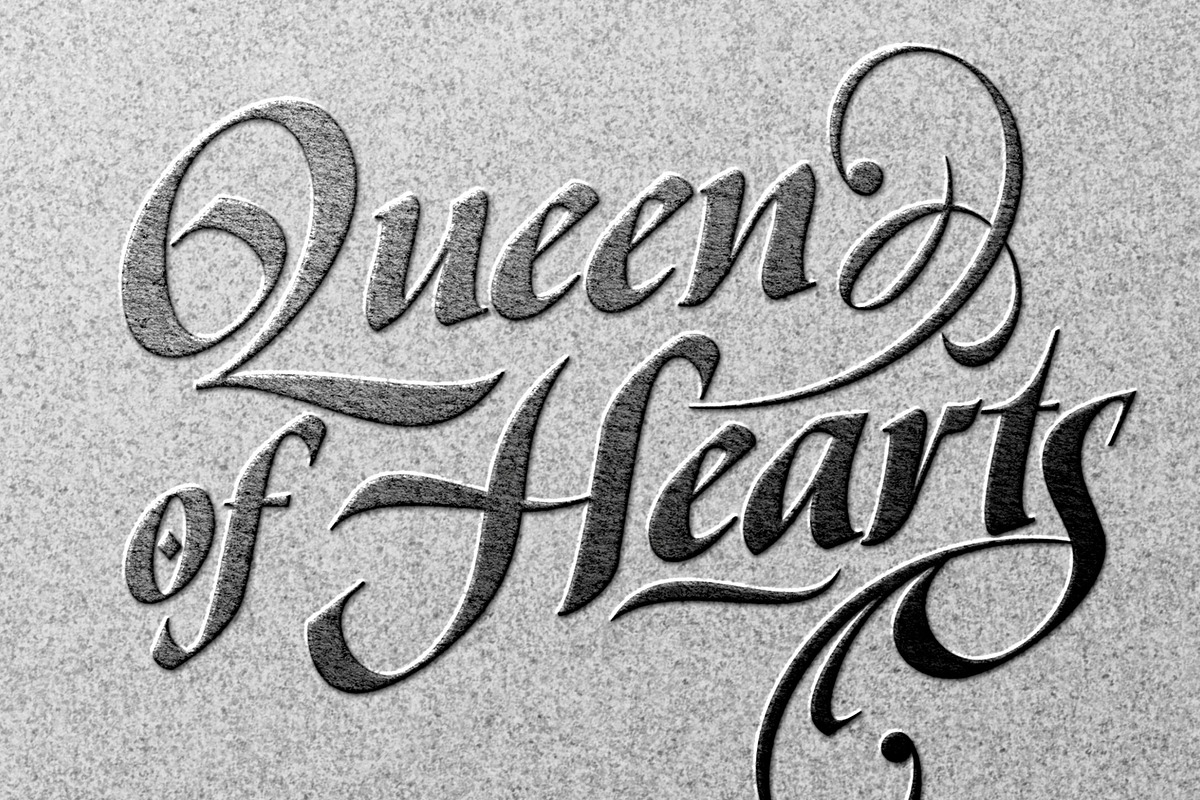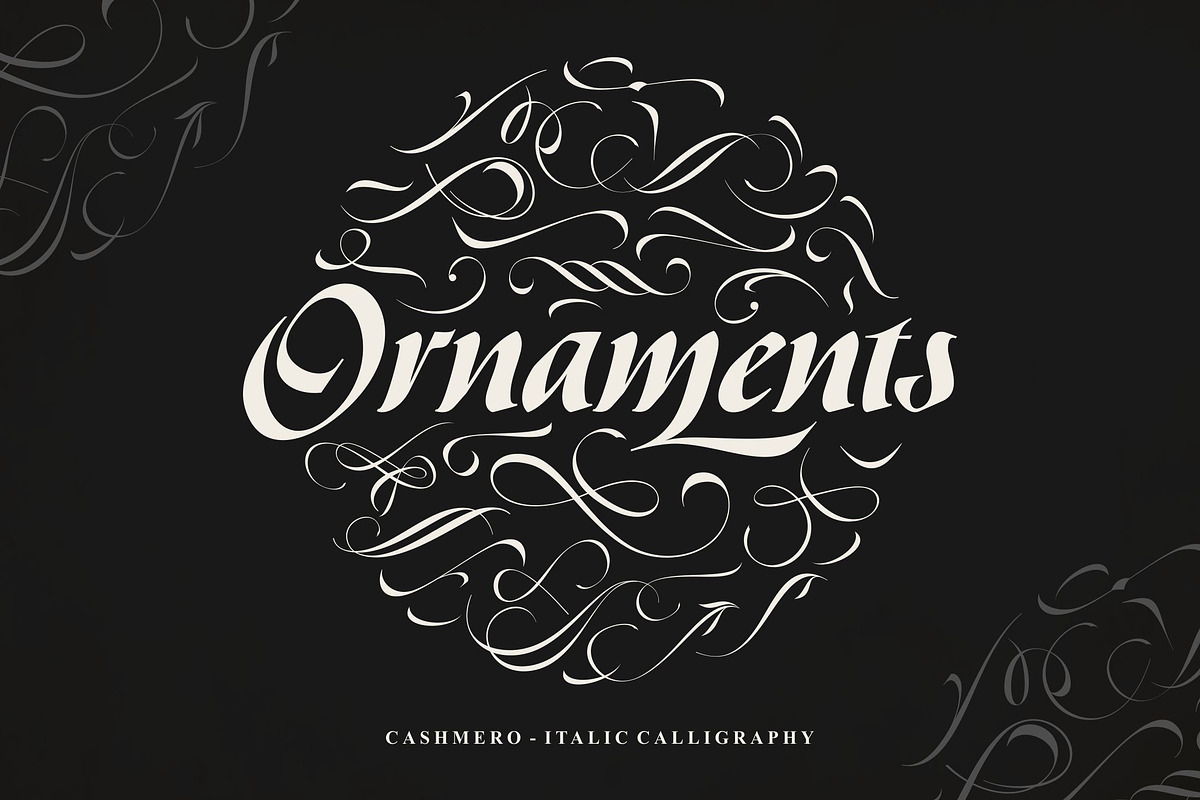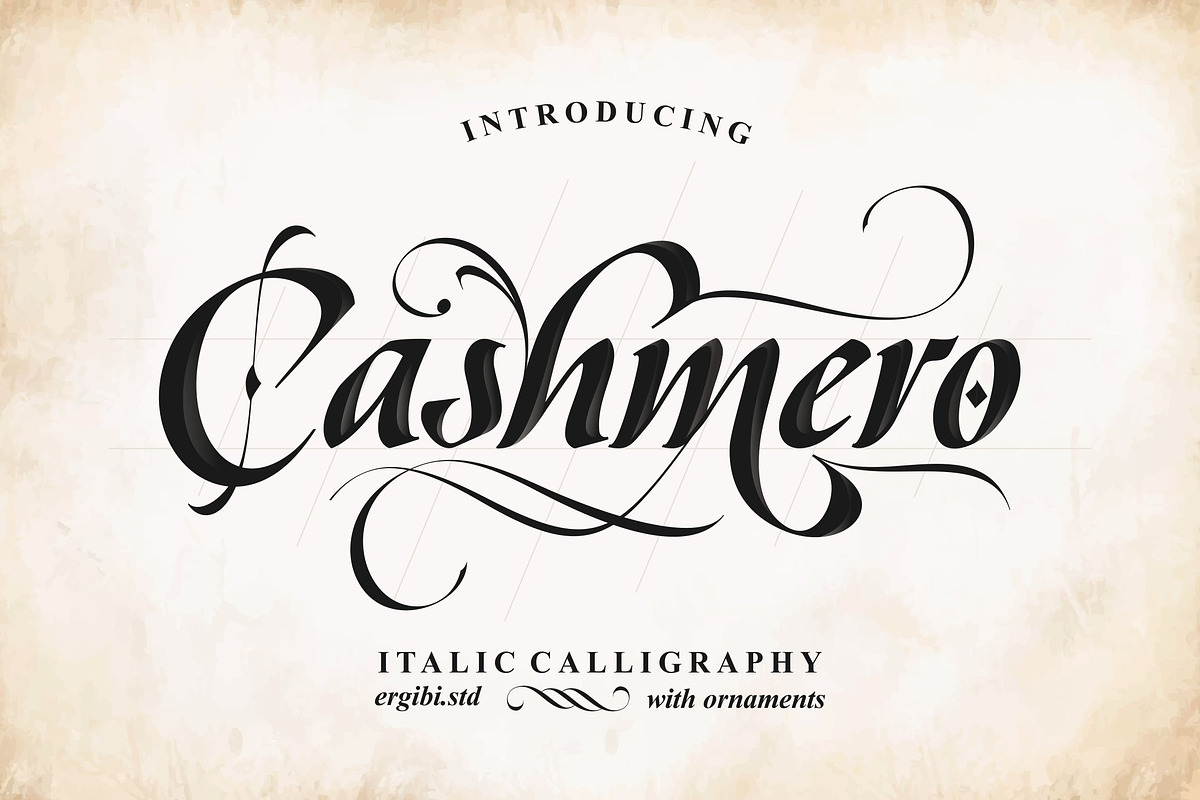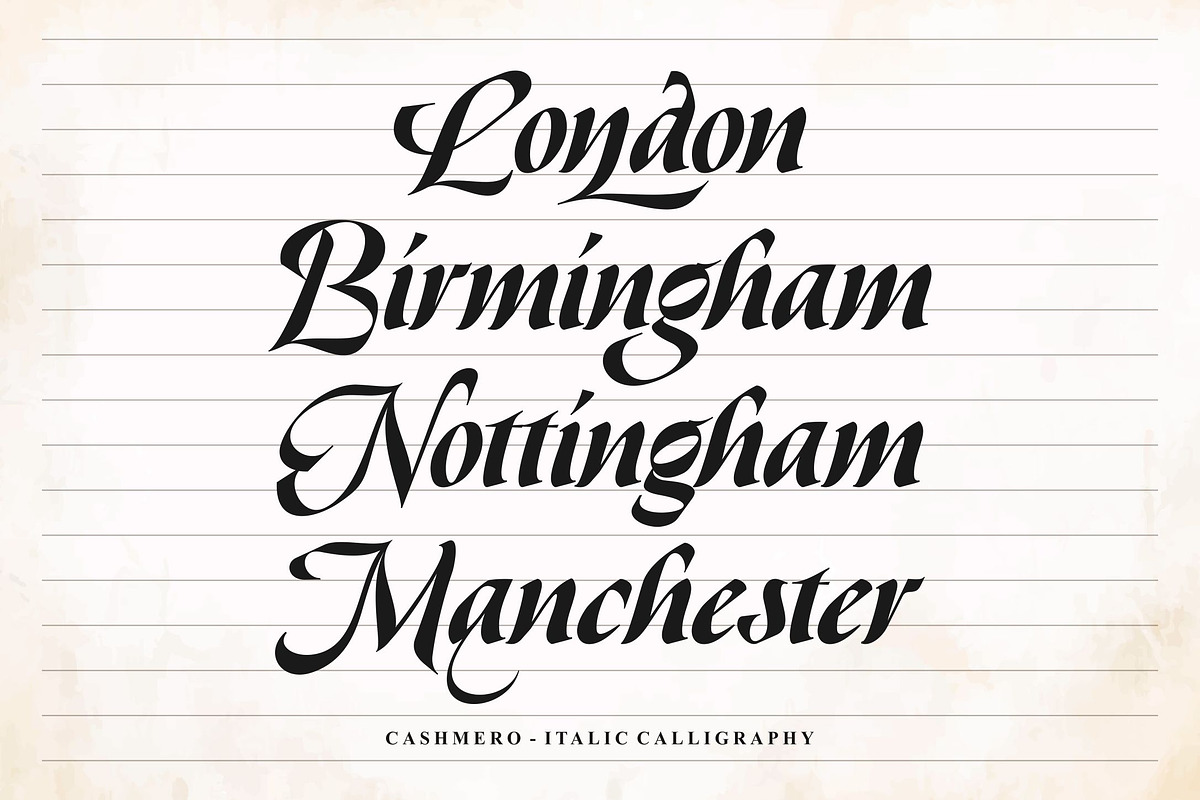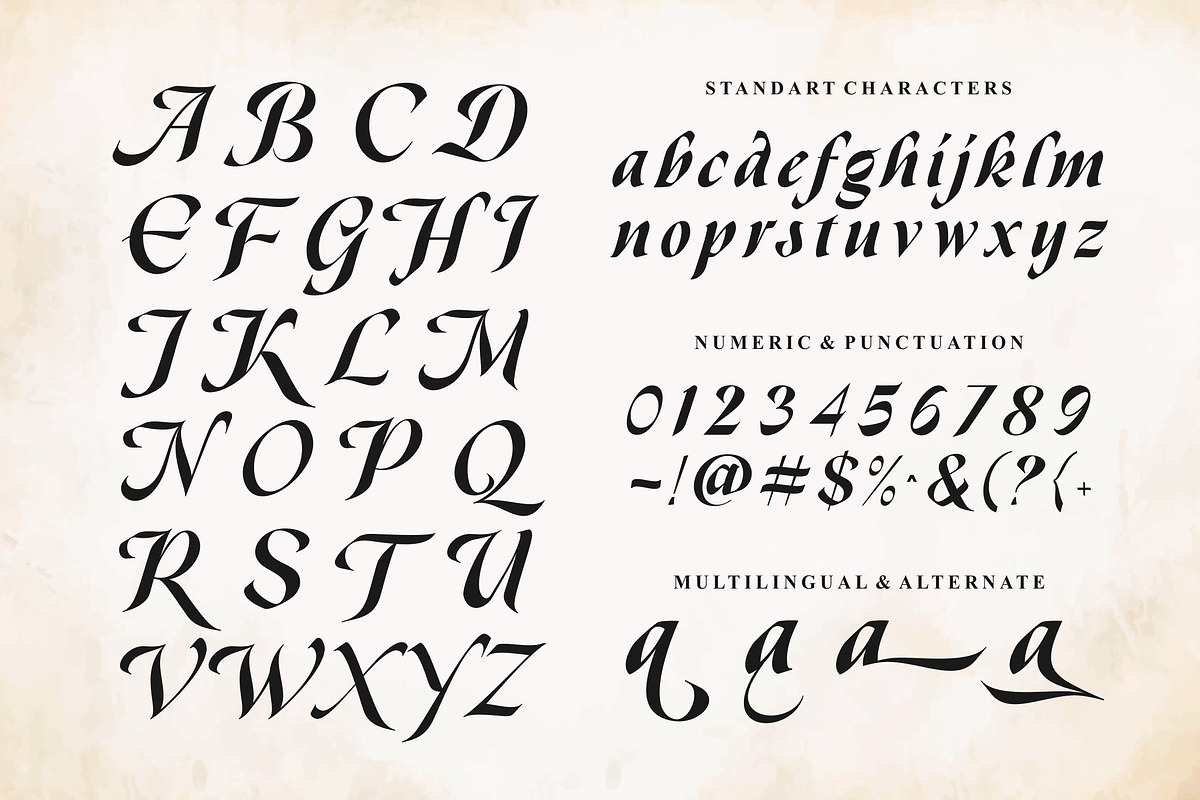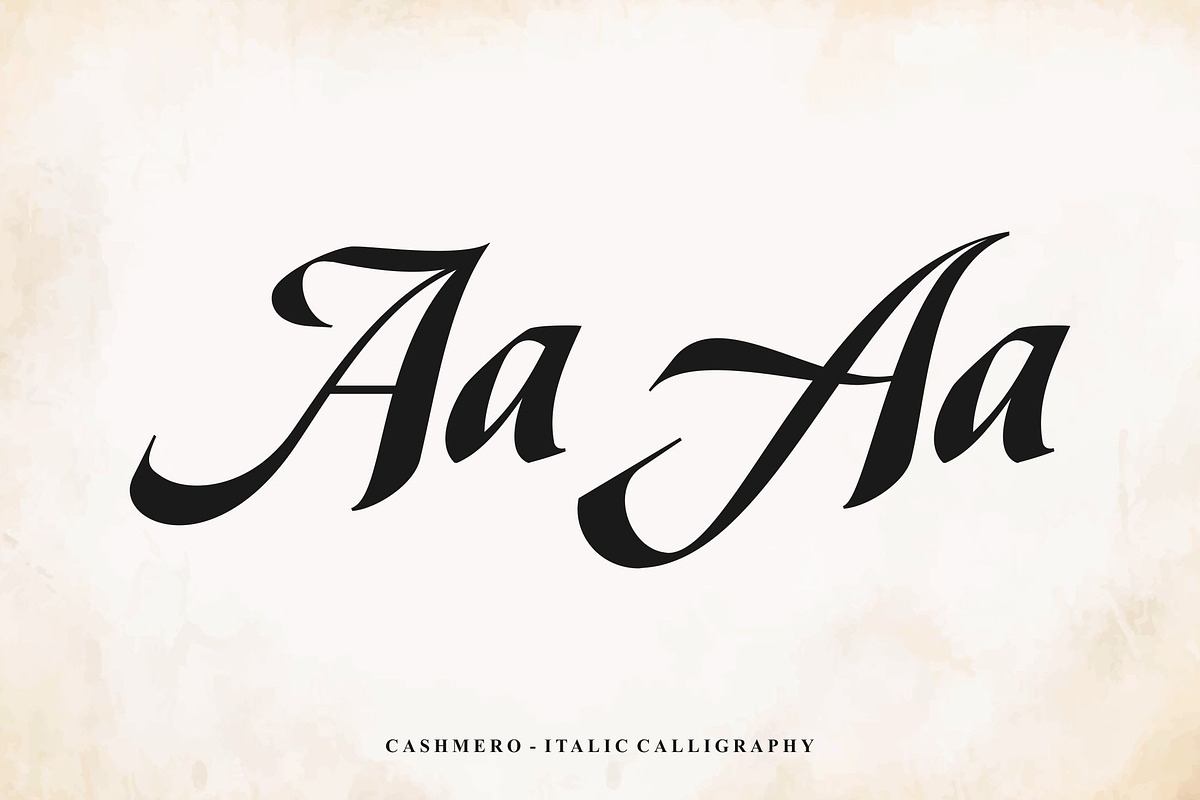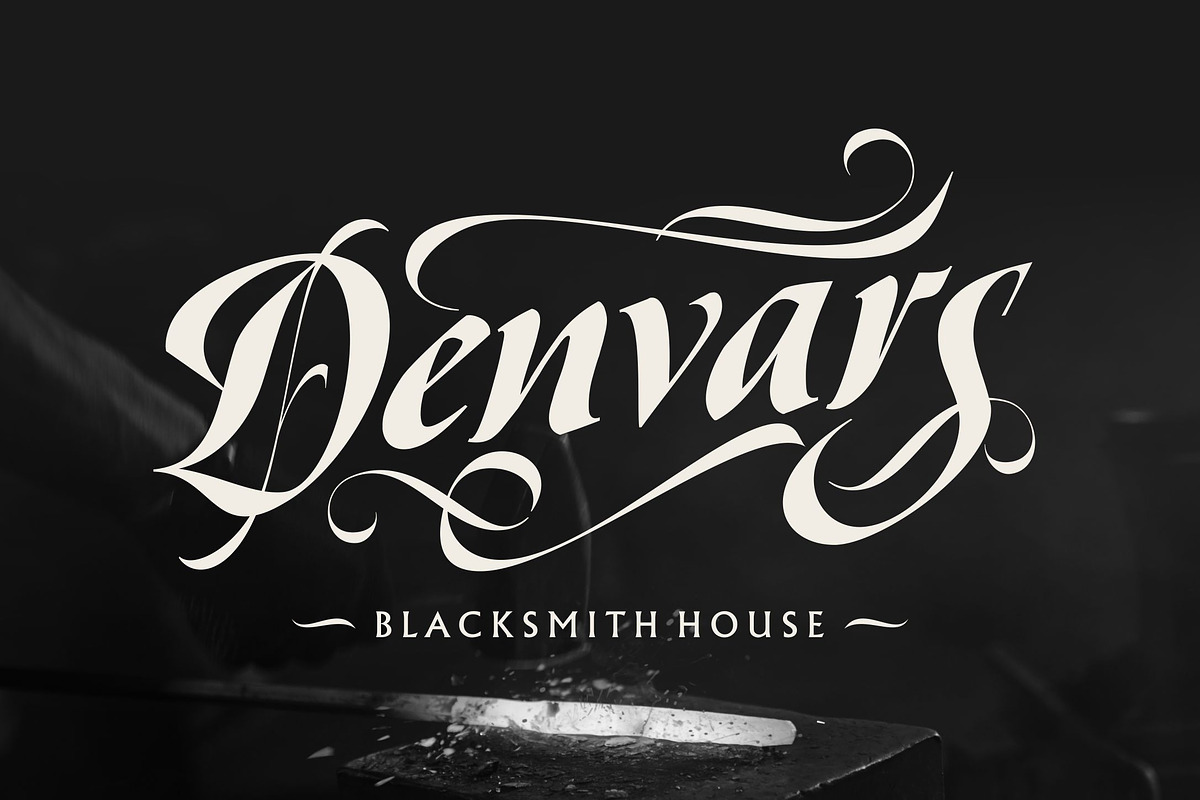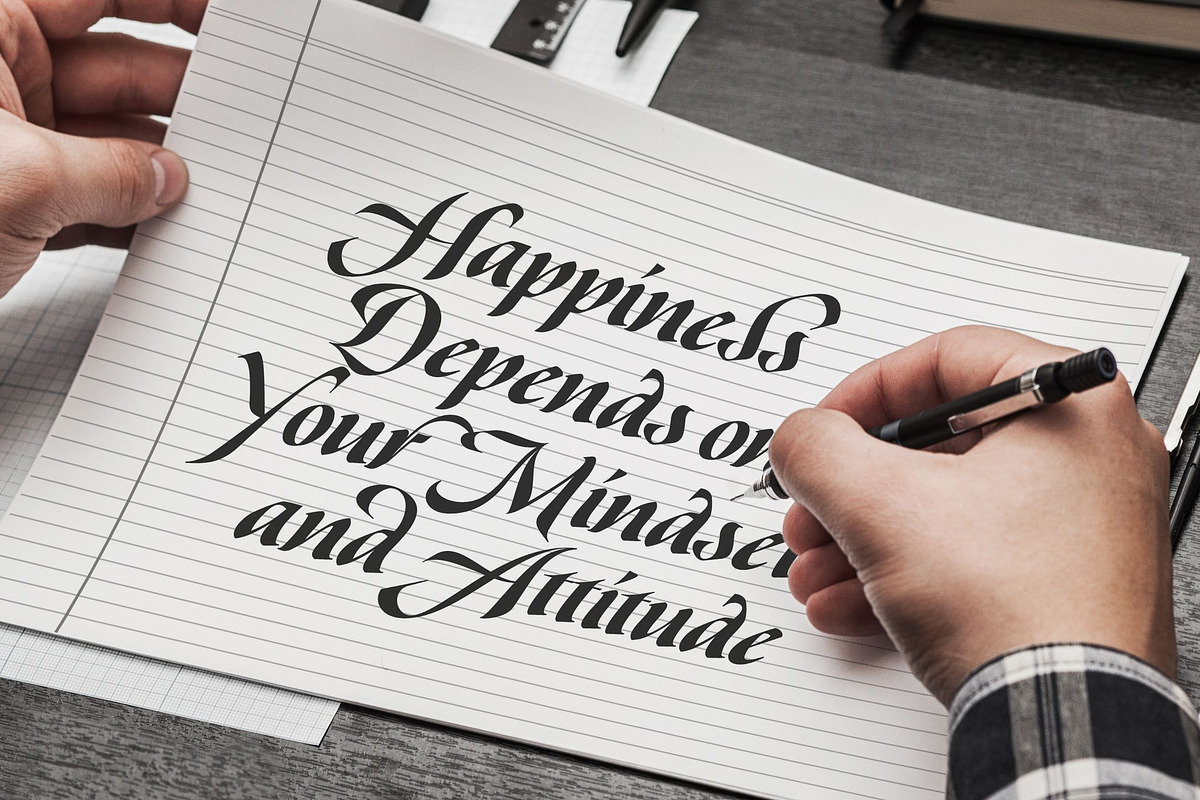
Cashmero - Italic Calligraphy
Cashmero - Italic Calligraphy font inspired by the traditional Calligraphy. With its beautifully crafted knots and intricate patterns, this font brings a touch of ancient modern to your designs. The addition of ornaments makes the traditional feel of this font even more amazing